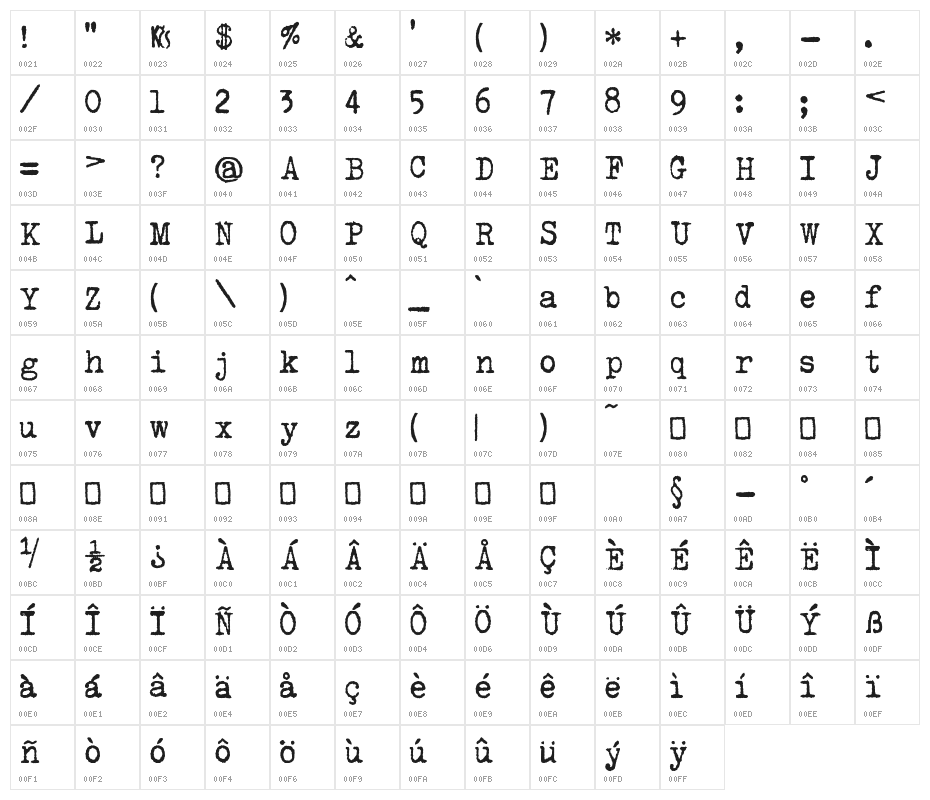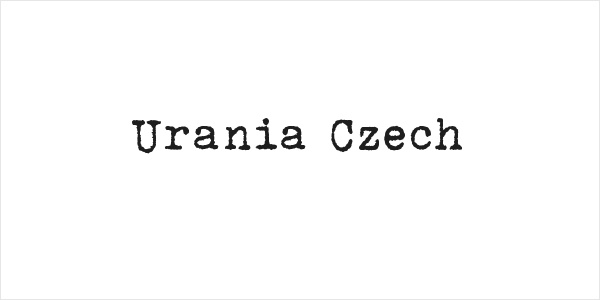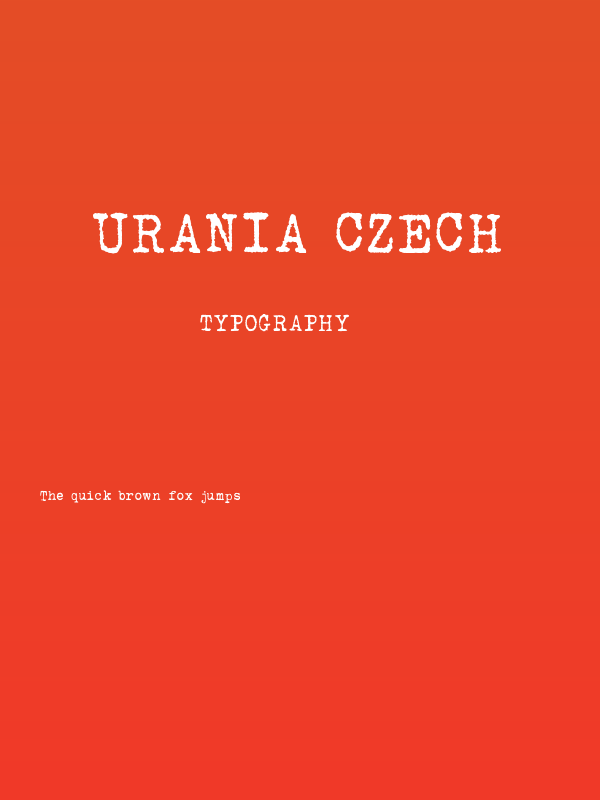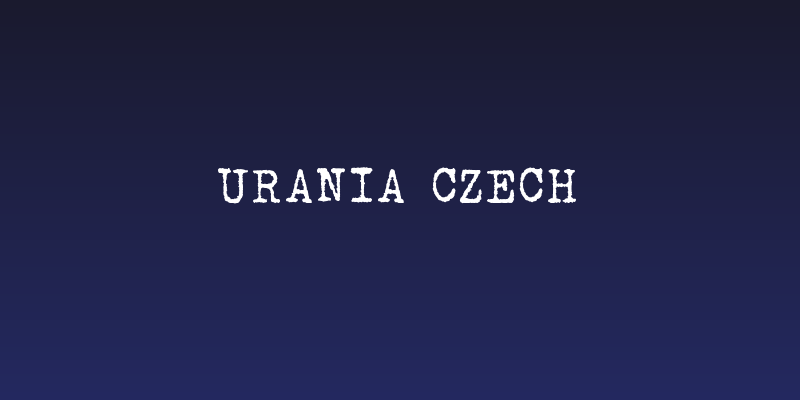
Urania Czech Font
Urania Czech Description
This typeface exudes a vintage, typewriter-inspired aesthetic, characterized by its monospaced letterforms and slightly irregular edges that mimic the texture of ink on paper. The uppercase and lowercase letters maintain a consistent height, while the numerals and special characters are designed to complement the overall style. The font's rough, textured appearance adds a sense of authenticity and nostalgia, making it ideal for projects that require a retro or handcrafted feel. Its legibility and unique character make it suitable for a variety of creative applications.
| Proposed Projects | Ideal for retro-themed designs, vintage posters, typewriter simulations, and creative projects requiring a handcrafted look. |